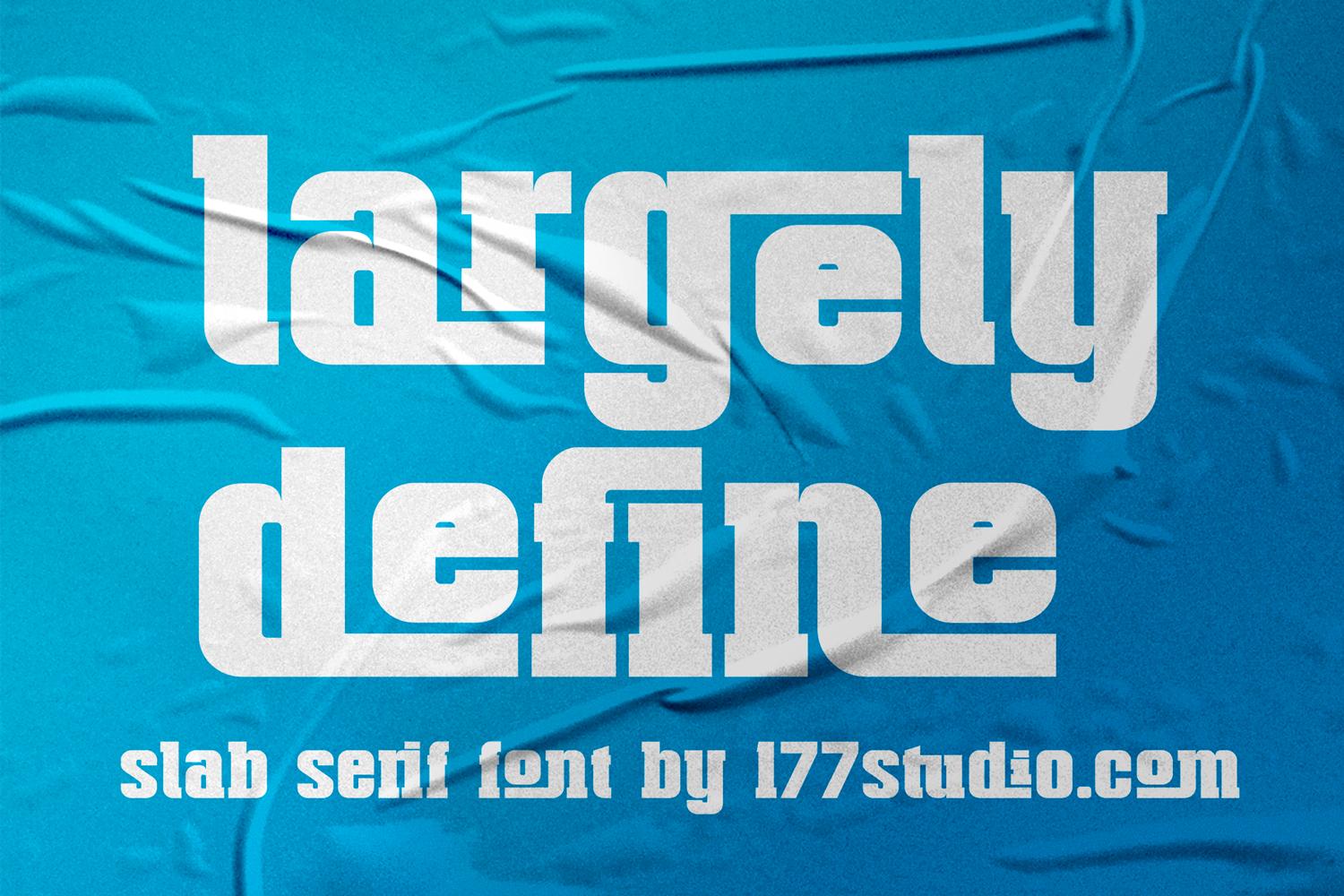
Largely Define Font Description
Largely Define is a bold, thick lettered and assertive slab serif font. It is PUA encoded which means you can access all glyphs and swashes with ease!